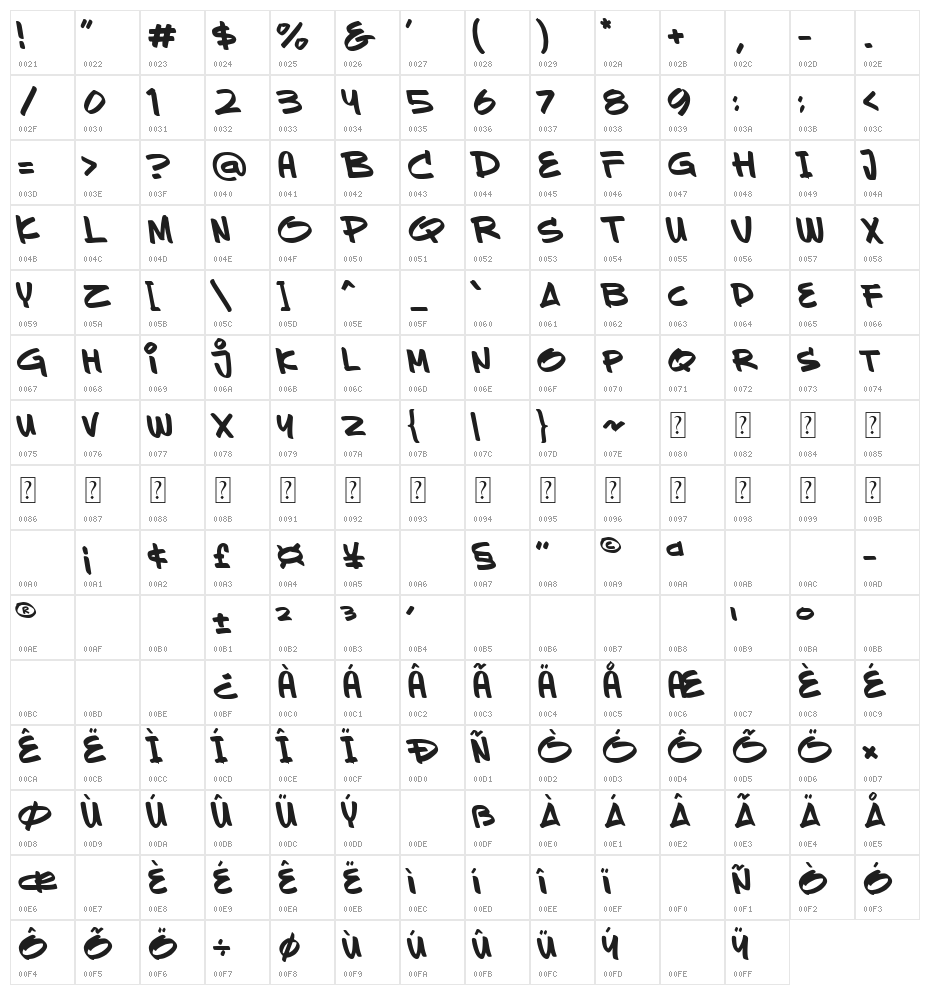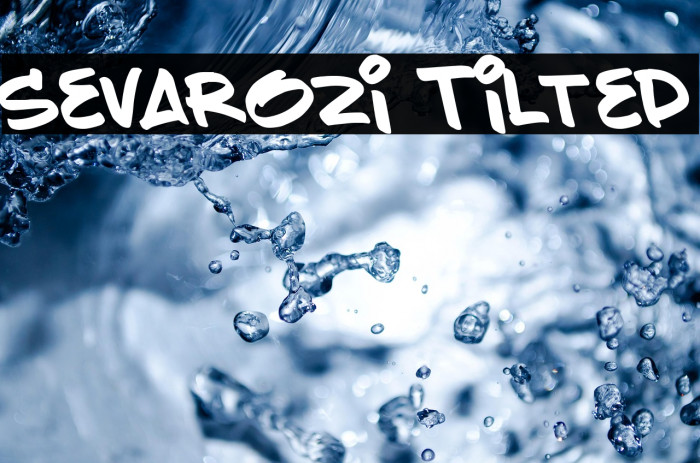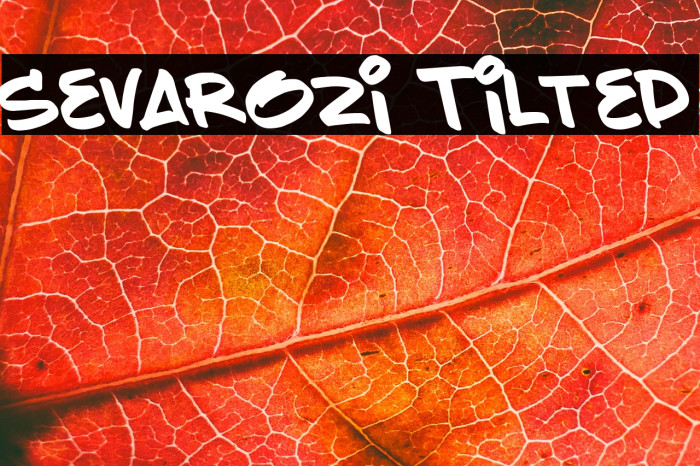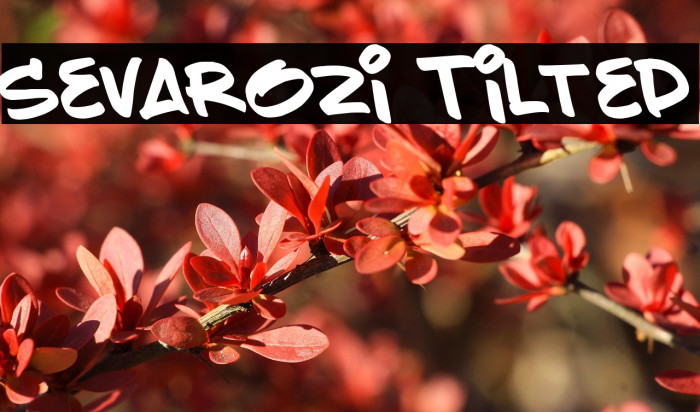
Sevarozi Tilted Font
Sevarozi Tilted Description
This font features a bold and dynamic style with a playful, handwritten appearance. The characters are slightly tilted, giving a sense of movement and energy. The strokes are thick and rounded, providing a friendly and approachable feel. The uppercase and lowercase letters maintain a consistent style, with a slight slant that adds to the casual aesthetic. Numbers and special characters are designed to match the overall playful theme, making this font suitable for creative and informal projects.
| Proposed Projects | Ideal for children's books, playful branding, casual invitations, and creative posters. |